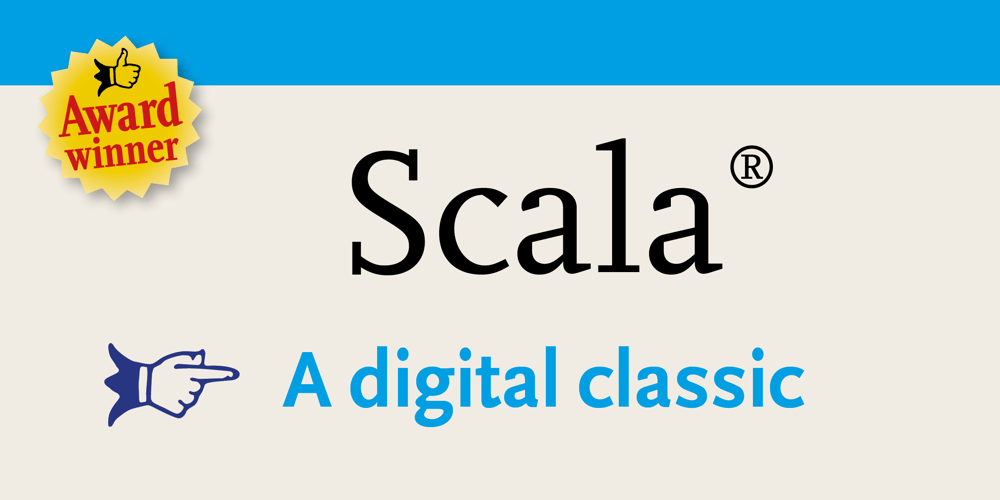
Scala Pro Font Family was designed by Martin Majoor and published by Martin Majoor. Scala Pro contains 6 styles and family package options. The award-winning Scala family (1990-1993) is a worldwide bestseller and has established itself as a ‘classic’ among digital fonts. It was one of the first serious digital text fonts to support small caps, ligatures and different set of numbers. In fact Scala and Scala Sans (1990-1993) are two different typefaces sharing a common form principle: the skeletons of both Scala and Scala Sans are identical. Scala’s dark colour and low contrast works to prevent the thin parts from breaking up. The generous length of Scala italic’s serifs gives it a strong rhythm. The bold weight has the same character widths as the normal weight, so changing a text from normal into bold does not affect the set width.Another part of Scala is very popular among its users: Scala Hands, containing more than one hundred decorative hands and pointers, is a free bonus. Scala Jewels is a set of four highly decorative typefaces, based on the bold capitals of Scala.